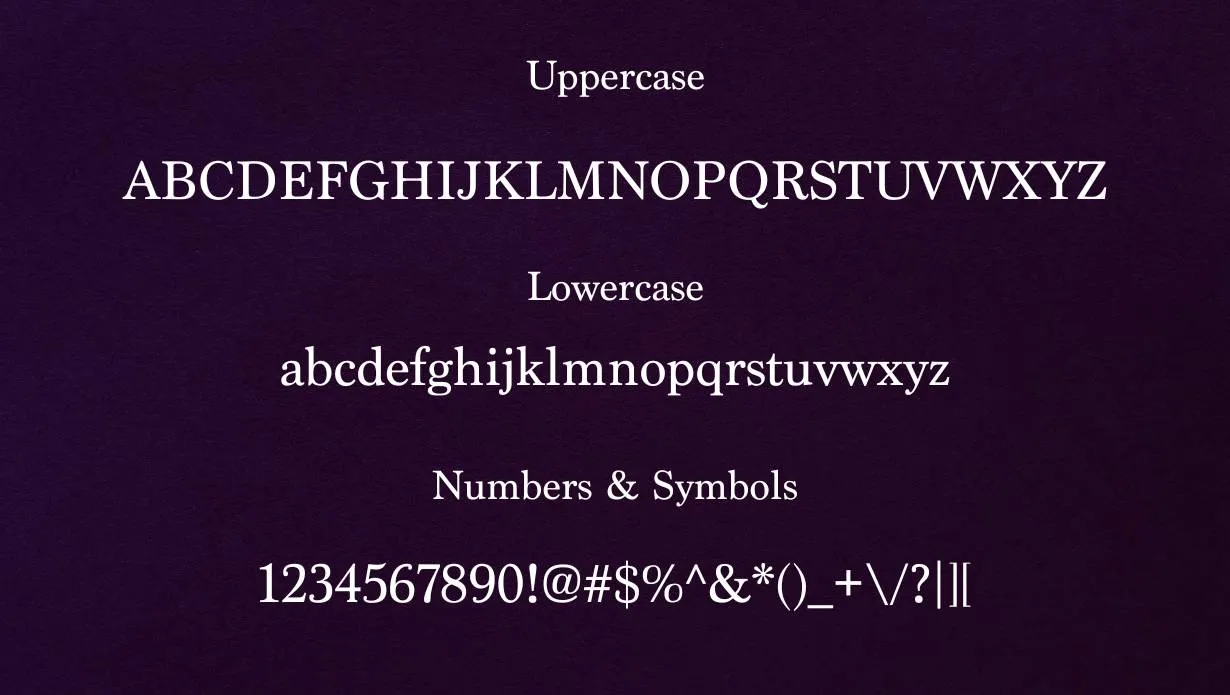
Marion font is like a classic melody for your words, adding a timeless touch to your text. When you use it, your words become like a familiar tune, evoking a sense of nostalgia.
| Name | Marion Font |
| Designer | Ray Larabie |
It’s great for formal documents, invitations, or anything that needs a touch of timeless class. Marion’s letters are like musical notes, each one contributing to the enduring charm of your message.